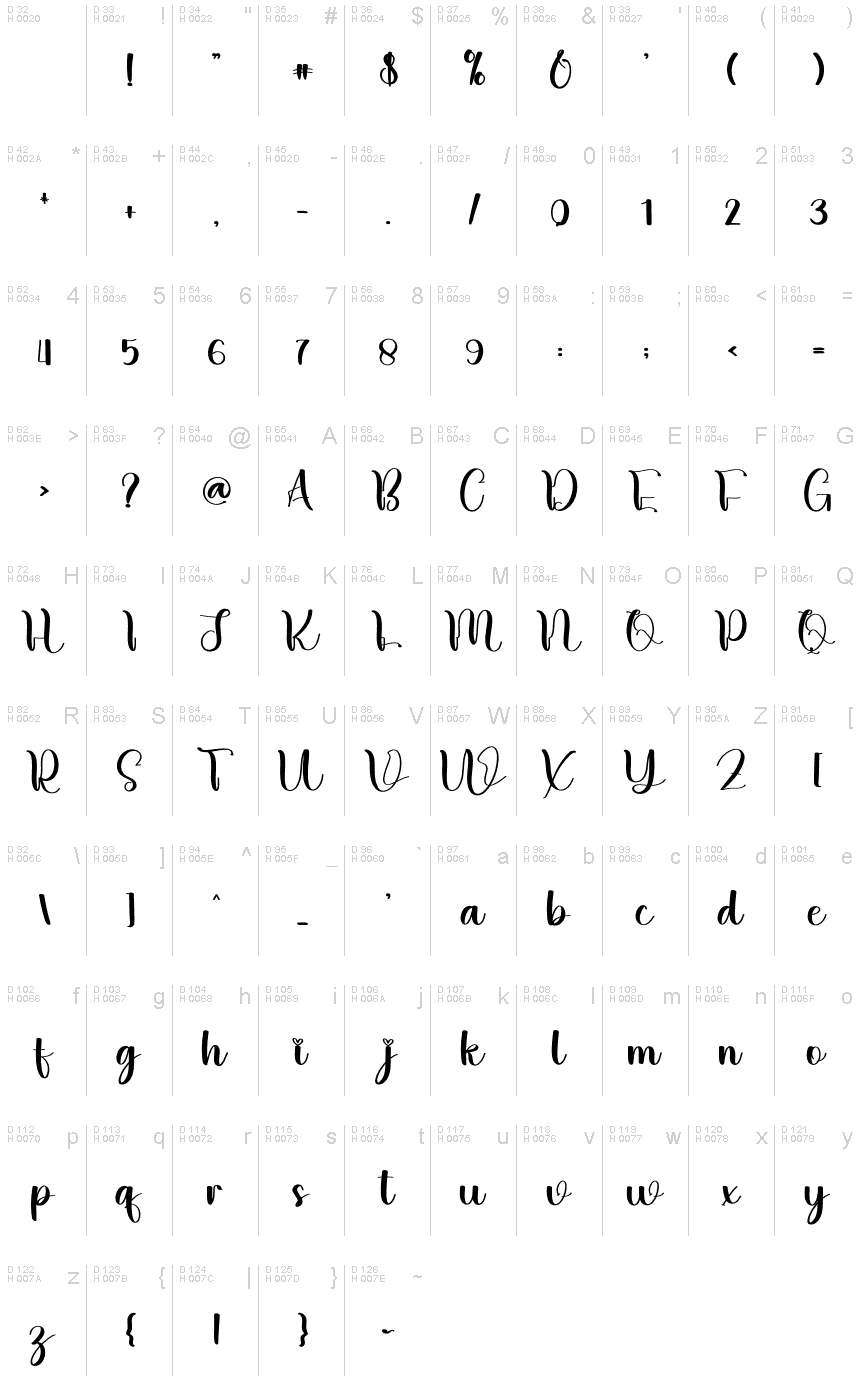
Puzzle
Puzzle, a handwritten font crafted by FreshtypeINK, embodies a blend of casual charm and elegant fluidity. Its distinctive strokes reflect the nuances of natural handwriting, bringing a personal touch to every design it graces. With its aesthetically pleasing curves and slight variations in weight, Puzzle exudes a sense of creativity and intimacy.
The style of Puzzle is approachable yet sophisticated, making it an excellent choice for projects that require a bespoke feel. From wedding invitations to branding materials, this font's versatility allows it to adapt seamlessly across various creative contexts. Envision Puzzle enhancing the warmth of personalized stationery or adding character to editorial content.
Embrace the unique allure of Puzzle for your next project and let its handwritten elegance speak volumes about your attention to detail and artistic flair.